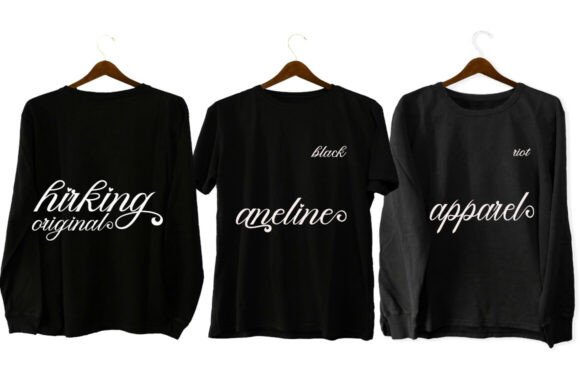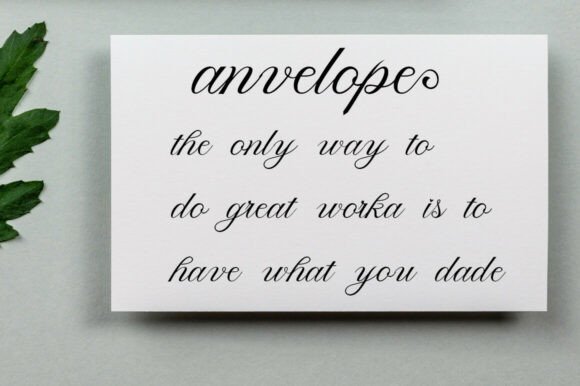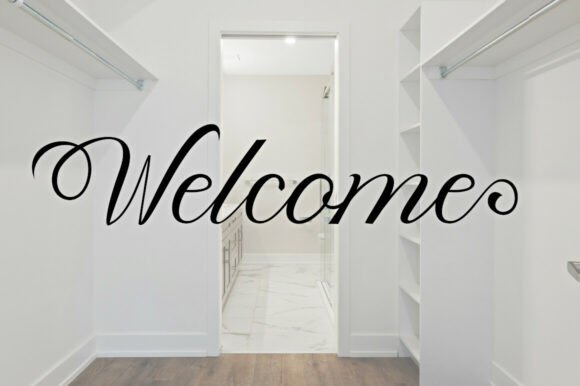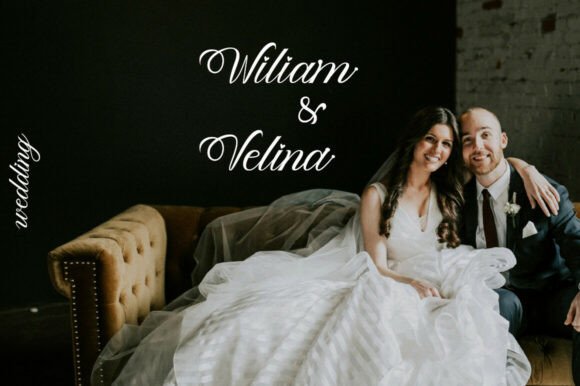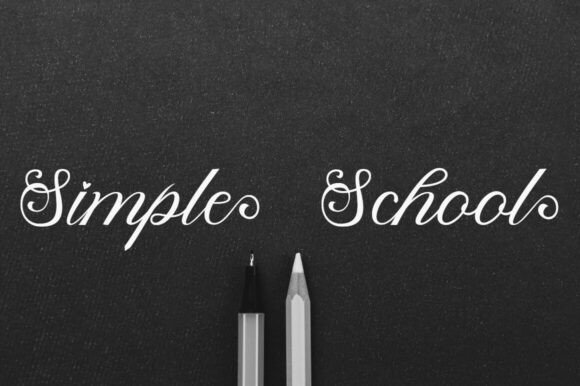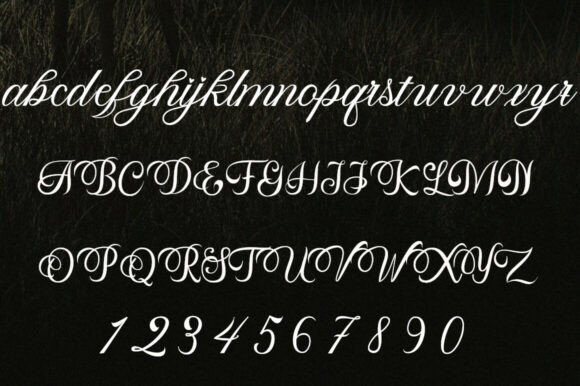
Introduction to Jenita Font
Remember the thrill of finding that perfect font for your creative project? You’re scrolling through your favorite design resource, and suddenly, you stumble upon a font that speaks to you. For designers, discovering a new font can be like stumbling upon a hidden treasure, elevating their design to a whole new level. One such treasure is the Jenita Font, a stunning handwritten font that exudes elegance and warmth.
With its smooth strokes and casual flow, the Jenita Font adds a touch of authenticity and charm to any design project. Whether you’re working on a branding project, creating a beautiful invitation, or designing a social media post, this font is sure to leave a lasting impression. And the best part? You can download the Jenita Font for free, complete with a transparent background, making it easy to integrate into your high-quality design.
- Features a unique and elegant design, ideal for use in branding, logos, and typography-based creative projects.
- Designed to be highly legible, making it an excellent choice for body text and headings in creative projects.
Honest Review: Jenita Font
As a designer, I’m always on the lookout for high-quality fonts to add some flair to my creative projects. Recently, I stumbled upon the Jenita Font, and I must say it’s been a game-changer.
- ✨ The Jenita Font has a beautiful, elegant design that’s perfect for any project requiring a touch of sophistication.
- ✨ The transparent background option allows for seamless integration with any design element.
- ⚠️ The font selection is somewhat limited, with only a few weights and styles available.
- ⚠️ The font may not be suitable for projects requiring bold, eye-catching text.
Overall, I’m impressed with the Jenita Font. It’s a solid design resource that’s perfect for projects requiring a touch of elegance. While it may have its limitations, I’d definitely recommend it to fellow designers looking for a high-quality, free font download.
For a high-quality design, use the Jenita Font with a transparent background to give your text a clean and modern look. Experiment with different font sizes and styles to create visual interest in your design.
Jenita Font is commonly used in creative projects such as logos, business cards, and social media graphics. Its elegant and sophisticated design makes it perfect for formal and professional applications.
Comparison to Jenita Font: Great Vibes Font has a more classic, vintage feel, whereas Jenita Font is more modern and playful. Great Vibes Font is ideal for formal events and weddings, while Jenita Font is better suited for casual, creative projects.
Comparison to Jenita Font: Alex Brush Font has a more refined, elegant feel, whereas Jenita Font is more playful and whimsical. Alex Brush Font is ideal for formal events and design resources, while Jenita Font is better suited for casual, creative projects.